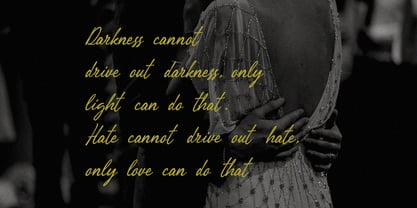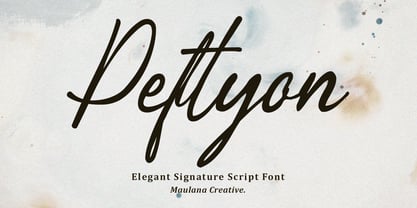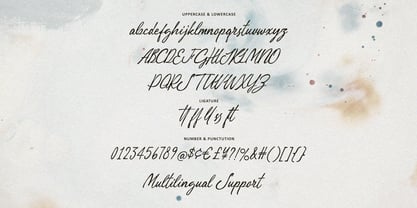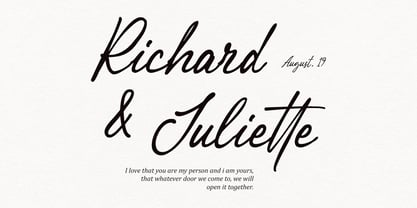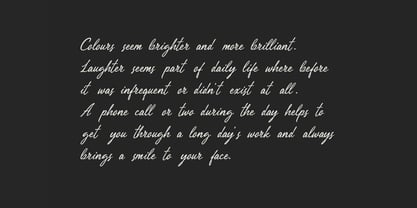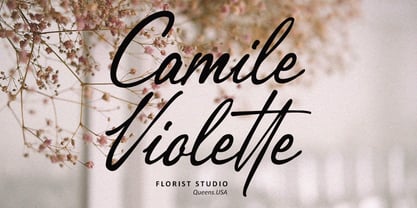
MC Peftyon
by Maulana Creative
The MC Peftyon Font Family was designed by Gilang Maulana and published by Maulana Creative. MC Peftyon contains 1 styles. More about this family
Elevate your designs with Peftyon, a premium signature script font designed to exude elegance, personal touch, and high-end sophistication. With its fluid, natural strokes and rhythmic flow, Peftyon perfectly mimics authentic hand-lettering, making it the ultimate choice for brands that want to feel bespoke and intimate. Whether you are designing a luxury wedding invitation, a sleek fashion logo, or high-end social media content, Peftyon provides a seamless blend of style and readability. It comes packed with a full set of uppercase and lowercase letters, numerals, punctuation, and special ligatures to give your text a truly custom, handcrafted look.
Designers: Gilang Maulana
Foundry: Maulana Creative